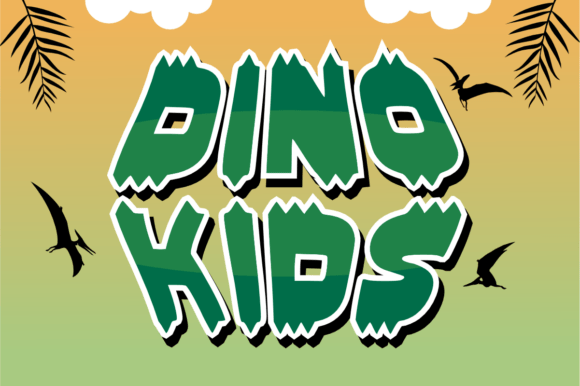
Dino Kids Font: Unleash Prehistoric Charm in Your Designs
Are you ready to take your designs back to the age of the dinosaurs? Look no further than the Dino Kids Font, a bold and playful typeface that’s perfect for creating eye-catching materials for kids and dinosaur enthusiasts alike. In this article, we’ll explore the features and benefits of the Dino Kids Font, and show you how to make the most of this exciting new font in your designs.
What is Dino Kids Font?
Dino Kids Font is an illustration font that embodies the raw energy and charm of the prehistoric era. Crafted solely with capital letters, this font is a bold and roaring display font that’s inspired by dinosaurs and prehistoric adventures. With its jagged edges and chunky characters, it’s the perfect choice for creating fun and engaging designs that kids will love.
Key Features of Dino Kids Font
- Bold and Playful Design: The Dino Kids Font is designed to make a statement, with bold and chunky characters that are sure to grab attention.
- Prehistoric Charm: The font’s jagged edges and prehistoric-inspired design elements evoke the excitement and adventure of the dinosaur era.
- Kid-Friendly: The font’s playful and fun design makes it perfect for use in children’s materials, such as birthday invitations, educational resources, and kids’ entertainment.
- Unique and Adorable Characters: Every character in the Dino Kids Font is designed to be unique and adorable, making it perfect for use in designs where you want to convey a sense of fun and playfulness.
Use Cases for Dino Kids Font
The Dino Kids Font is a versatile typeface that can be used in a wide range of design projects, including:
- Dinosaur-Themed Birthday Invitations: Create eye-catching invitations that set the tone for a roaring good time.
- Educational Materials: Use the font to create engaging and interactive educational resources, such as worksheets, activity sheets, and posters.
- Toy Packaging: Add a touch of prehistoric charm to toy packaging and make your product stand out on store shelves.
- Fun Signage: Use the font to create fun and engaging signage for kids’ events, parties, and attractions.
- Sublimation Print T-Shirts: Create custom t-shirts with bold and playful designs that kids will love.
- Beverage Mugs: Add a touch of fun and personality to beverage mugs with the Dino Kids Font.
- Tote Bags: Create custom tote bags with bold and playful designs that are perfect for kids and parents alike.
- Animation Projects: Use the font to add a touch of prehistoric charm to animation projects, such as videos, shorts, and films.
Benefits of Using Dino Kids Font
The Dino Kids Font offers a range of benefits for designers and creators, including:
- Instant Recognition: The font’s bold and playful design ensures instant recognition and attention-grabbing appeal.
- Kid-Friendly Appeal: The font’s playful and fun design makes it perfect for use in children’s materials and designs.
- Unique and Creative Designs: The font’s unique and adorable characters ensure that your designs stand out from the crowd.
- Easy to Read: The font’s bold and chunky design makes it easy to read, even at small sizes.
Tips for Using Dino Kids Font
To get the most out of the Dino Kids Font, follow these tips:
- Use it for Headings and Titles: The font’s bold and playful design makes it perfect for use in headings and titles.
- Experiment with Colors: The font’s bold design looks great in a range of colors, so don’t be afraid to experiment and find the perfect hue for your design.
- Pair it with Other Fonts: The font’s bold design pairs well with other fonts, so try combining it with a sans-serif font for a fun and playful look.
The Dino Kids Font is a bold and playful typeface that’s perfect for creating eye-catching designs for kids and dinosaur enthusiasts alike. With its prehistoric charm, unique and adorable characters, and kid-friendly appeal, it’s the perfect choice for a wide range of design projects. Whether you’re creating dinosaur-themed birthday invitations, educational materials, or fun signage, the Dino Kids Font is sure to bring a touch of prehistoric charm to your designs.